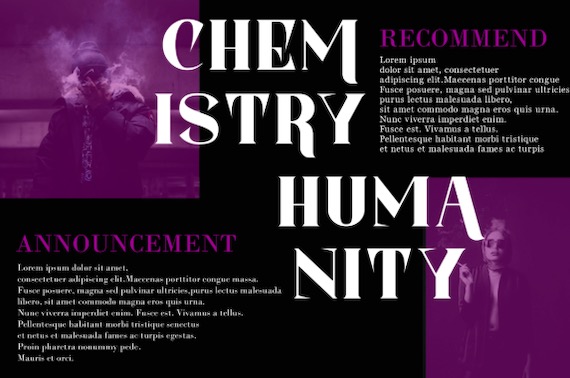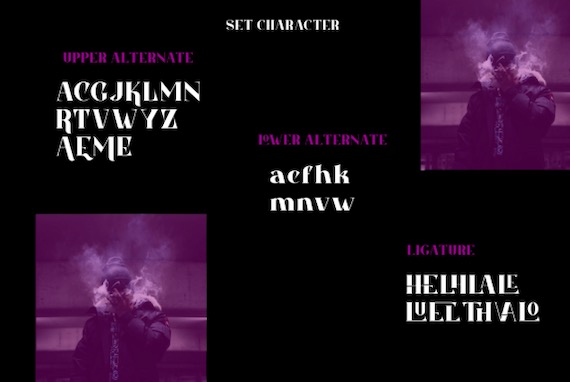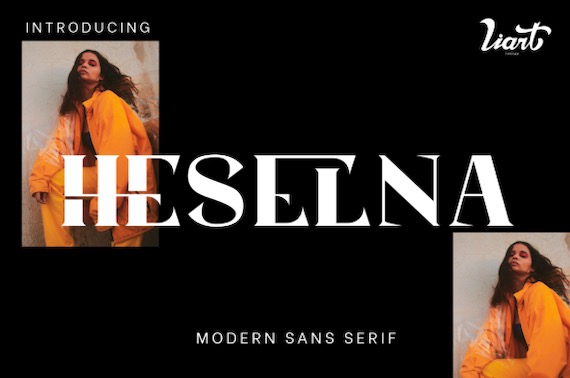
Heselna Font is an exciting and modern serif typeface that was created and shared by Liarttype along with an assertive style and a unique touch. Heselna will look stunning on fashion magazines, logos, photography watermarks, landing pages, flyers, and many other creations. Heselna Font is PUA encoded, which means you can access all of the glyphs and swashes with ease!
Heselna Display Serif Font